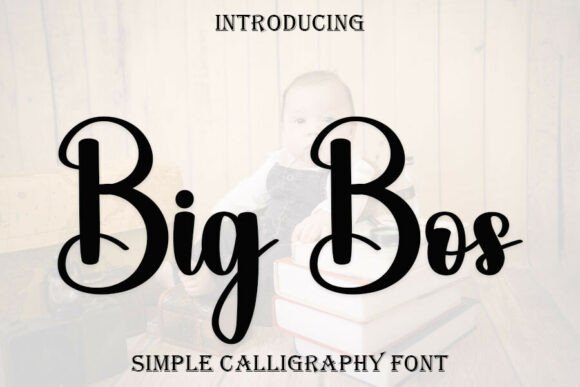
There’s nothing quite like the thrill of finding that perfect font to bring your design to life. You’ve spent hours pouring over inspiration boards, trying out different combinations, and tweaking your layout – and then, it happens. You stumble upon a font that makes your heart skip a beat. For many designers, that font is Big Bos Font, a sweet and cursive handwritten font that adds a touch of joy and romance to any project.
Big Bos Font is more than just a pretty face – it’s a versatile tool that can elevate your branding, logos, wedding designs, and marketing materials. Its casual yet elegant feel makes it perfect for fashion, lookbooks, and greeting cards, giving your designs a unique and sophisticated touch.
Big Bos Font Key Features
- Unique Characteristics: Big Bos Font features bold, rounded shapes and a distinctive style that sets it apart from other fonts.
Big Bos Font Review
At first glance, I was excited to dive into the “Big Bos Font”. It’s a bold, playful font that could add a fun touch to any project. ✨ The weight and texture of the font make it perfect for use in headings or titles, and I love the way it draws attention to the content.
One of the things that really stands out about “Big Bos Font” is its versatility. It’s easy to use in a variety of contexts, from digital displays to print materials. ✨ The font is also highly customizable, allowing designers to adjust the size, color, and style to suit their needs.
While “Big Bos Font” is a great addition to any design arsenal, there are a few limitations to be aware of. ⚠️ For one, the font can be a bit too loud for some projects. It’s perfect for bold statements, but may overwhelm more subtle content. Additionally, the font may not be suitable for all languages or character sets.
- Requires careful balancing to avoid overwhelming content
- May not be suitable for all languages or character sets
Overall, I think “Big Bos Font” is a great addition to any designer’s toolkit. While it may have some limitations, its versatility and customizability make it a valuable asset for any project. With careful use, this font can add a fun and playful touch to even the most serious content. ✨
Practical Application Guide for Big Bos Font
Tip: Use Big Bos Font to create eye-catching headlines and titles in your designs.
Tip: Use Big Bos Font to create bold and striking typography in your designs.
Tip: Use Big Bos Font to create professional-looking headings and titles in your presentations and documents.
Alternatives to Big Bos Font
Playfair Display is a luxurious and elegant serif font, ideal for high-end branding, luxury goods, and formal invitations. It has a more refined and sophisticated look compared to Big Bos Font, making it suitable for projects that require a touch of sophistication.
Comparison: Playfair Display has a more formal and elegant look, whereas Big Bos Font is more playful and bold.
Great Vibes is a modern script font with a fun and energetic vibe, perfect for creative projects, advertisements, and social media graphics. It’s a great alternative to Big Bos Font for projects that require a more casual and approachable tone.
Comparison: Great Vibes is more fluid and cursive, whereas Big Bos Font is more bold and sans-serif.
Pacifico is a beautiful and elegant script font, ideal for projects that require a touch of sophistication and luxury. It’s a great alternative to Big Bos Font for projects that require a more refined and high-end look.